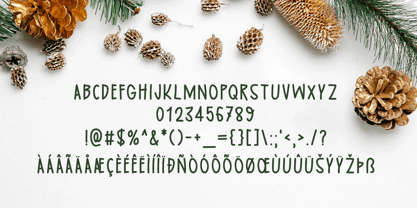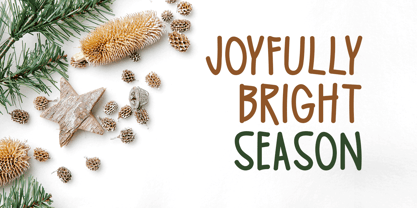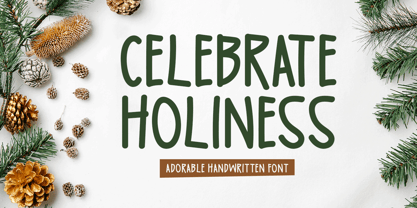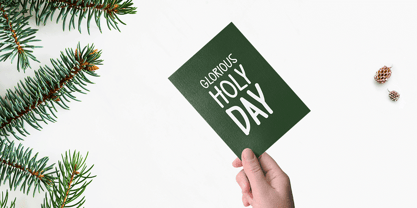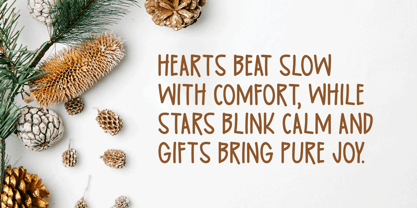
Celebrate Holiness
by Seemly Fonts
The Celebrate Holiness Font Family was designed by Md. Sohail Bhuiyan and published by Seemly Fonts. Celebrate Holiness contains 1 styles. More about this family
Celebrate Holiness is an adorable handwritten font that radiates charm and positivity. Its playful yet graceful design makes it a wonderful choice for stationery, logos, apparel, print materials, website headers, invitations, music covers, posters, and more. Perfect for adding a personal and uplifting touch, this font brings a sense of joy and celebration to every project.
Designers: Md. Sohail Bhuiyan
Foundry: Seemly Fonts